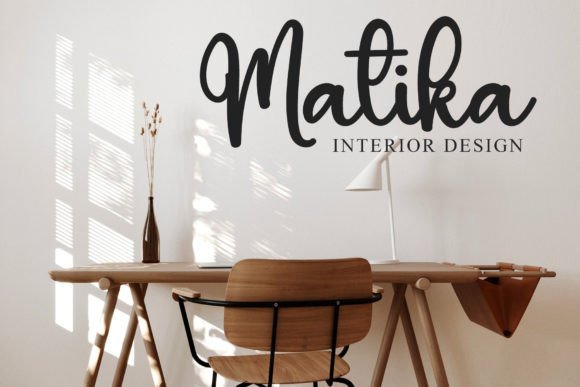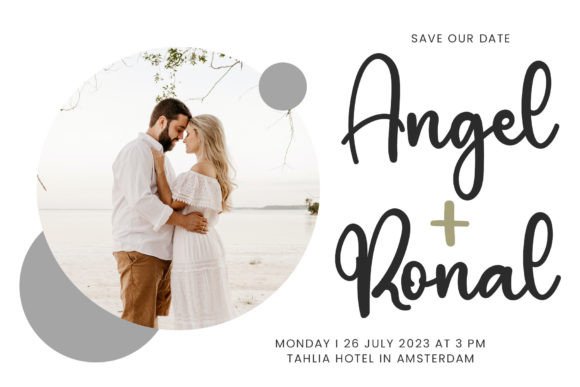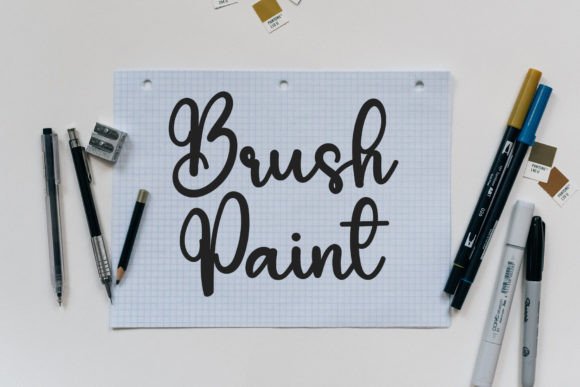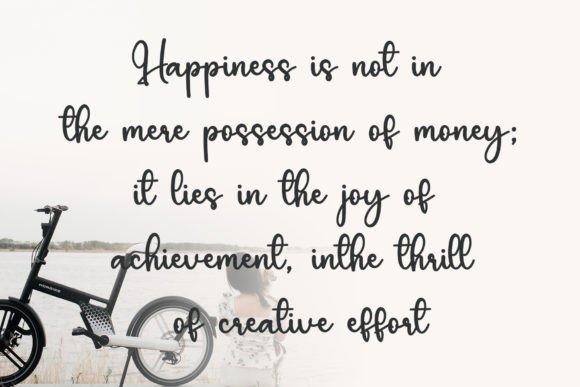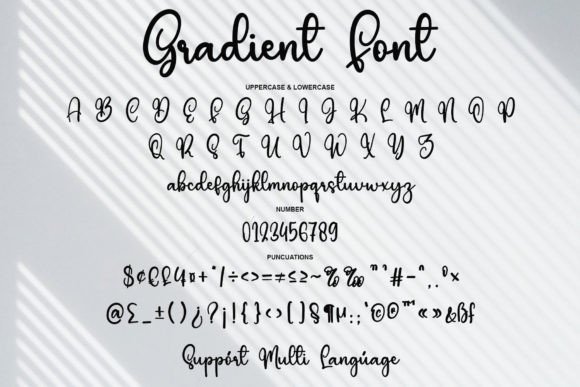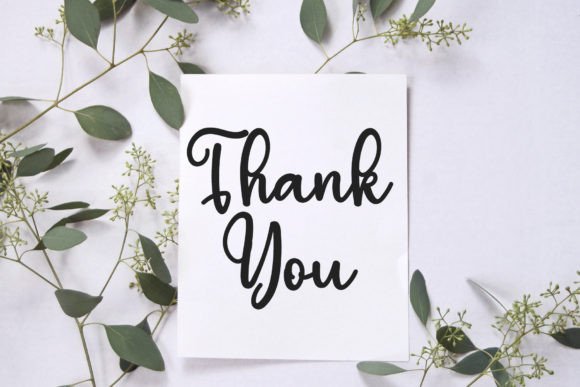
Elevate Your Designs with Gradient Font: A Beautiful Handwritten Script
Are you looking for a font that exudes elegance, sophistication, and modernity? Look no further than Gradient Font, a stunning handwritten script that’s perfect for a wide range of design applications. In this article, we’ll dive into the world of Gradient Font, exploring its features, benefits, and uses, and why it’s a must-have for designers and crafters.
What is Gradient Font?
Gradient Font is a beautiful and refined handwritten font that’s designed to add a touch of class and sophistication to any design project. Its modern and elegant feel makes it perfect for logos, branding, invitations, stationery, wedding designs, social media posts, and much more. Whether you’re a professional designer or a DIY crafter, Gradient Font is an excellent choice for anyone looking to elevate their designs.
Key Features of Gradient Font
- PUA Encoded: Gradient Font is PUA (Private Use Area) encoded, which means you can access all of the amazing glyphs and ligatures with ease. This feature allows you to unlock the full potential of the font and use it in a variety of creative ways.
- Handwritten Script: Gradient Font is a handwritten script that’s designed to look natural and effortless. Its flowing lines and curves give it a unique and personalized feel that’s perfect for adding a touch of warmth and personality to your designs.
- Modern and Elegant: Gradient Font has a modern and elegant feel that’s perfect for designs that require a touch of sophistication. Its refined lines and curves make it perfect for logos, branding, and other high-end design applications.
- Versatile: Gradient Font is an incredibly versatile font that can be used in a wide range of design applications. Whether you’re designing a logo, creating a social media post, or crafting a wedding invitation, Gradient Font is an excellent choice.
Benefits of Using Gradient Font
So, why should you choose Gradient Font for your design projects? Here are just a few benefits of using this amazing font:
- Elegance and Sophistication: Gradient Font adds a touch of elegance and sophistication to any design project. Its refined lines and curves make it perfect for designs that require a high-end feel.
- Easy to Use: Gradient Font is incredibly easy to use, even for those who are new to design. Its PUA encoding makes it easy to access all of the glyphs and ligatures, and its flowing lines and curves make it easy to create beautiful designs.
- Versatility: Gradient Font is an incredibly versatile font that can be used in a wide range of design applications. Whether you’re designing a logo, creating a social media post, or crafting a wedding invitation, Gradient Font is an excellent choice.
- Unique and Personalized: Gradient Font has a unique and personalized feel that’s perfect for adding a touch of warmth and personality to your designs. Its handwritten script makes it look natural and effortless, and its flowing lines and curves give it a one-of-a-kind feel.
Uses of Gradient Font
So, what can you use Gradient Font for? The possibilities are endless! Here are just a few ideas to get you started:
- Logos and Branding: Gradient Font is perfect for logos and branding applications. Its modern and elegant feel makes it perfect for creating a professional and sophisticated brand identity.
- Invitations and Stationery: Gradient Font is a great choice for invitations and stationery. Its elegant and refined feel makes it perfect for creating beautiful and sophisticated designs.
- Wedding Designs: Gradient Font is a popular choice for wedding designs. Its romantic and elegant feel makes it perfect for creating beautiful wedding invitations, decorations, and other wedding-related designs.
- Social Media Posts: Gradient Font is also great for social media posts. Its modern and elegant feel makes it perfect for creating eye-catching and sophisticated social media graphics.
| Font Name | Gradient Font |
| Author | Bintang Studio |
In conclusion, Gradient Font is a beautiful and refined handwritten font that’s perfect for designers and crafters. Its modern and elegant feel, PUA encoding, and versatility make it an excellent choice for a wide range of design applications. Whether you’re designing a logo, creating a social media post, or crafting a wedding invitation, Gradient Font is a must-have font that will elevate your designs to the next level.